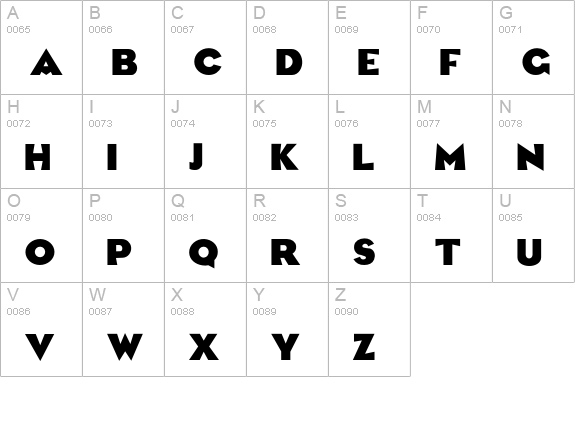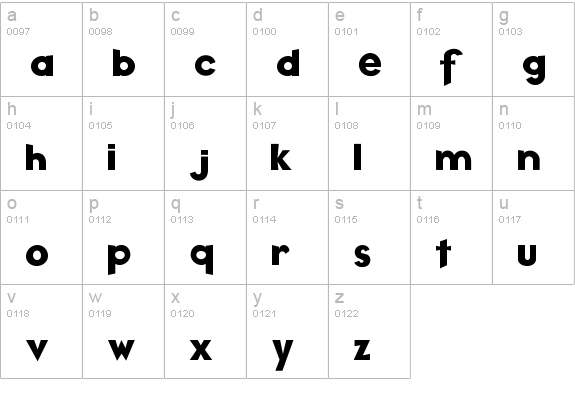
MisterDope Font Details
MisterDope font is a stylish and modern typeface that exudes a sense of sophistication and creativity. With its clean lines and distinct letterforms, this font is perfect for a wide range of design projects, from branding to editorial design. What sets MisterDope font apart is not only its sleek design but also the fact that it is available for free download at FontsMarket.com. This means that you can add a touch of elegance to your projects without breaking the bank. Whether you're working on a logo, poster, or website, MisterDope font is sure to make a bold statement and leave a lasting impression on your audience. So why wait? Download MisterDope font today and elevate your designs to the next level with this versatile and eye-catching typeface.